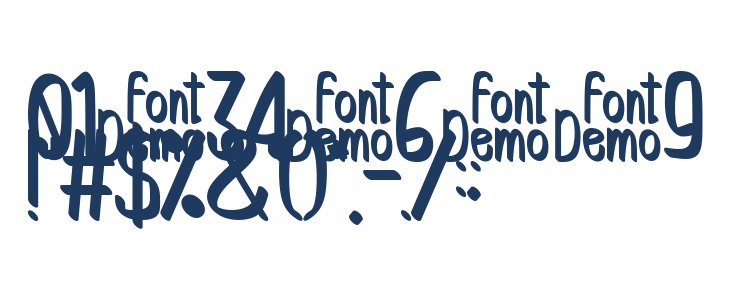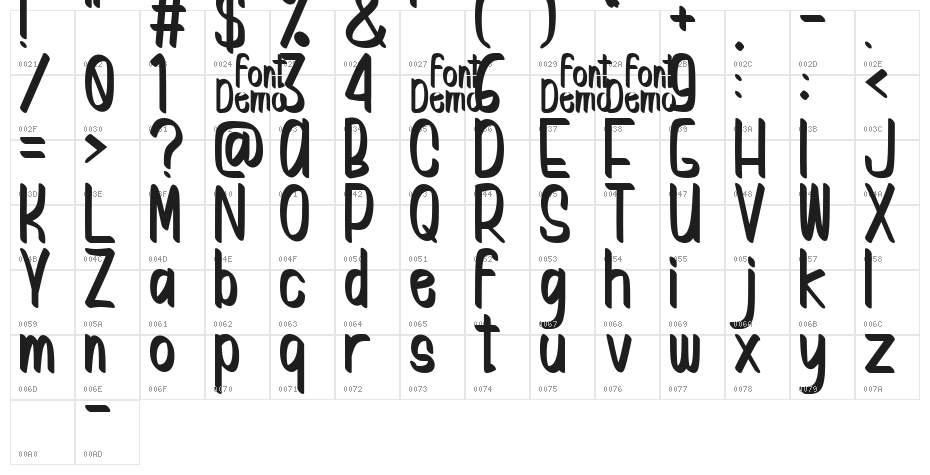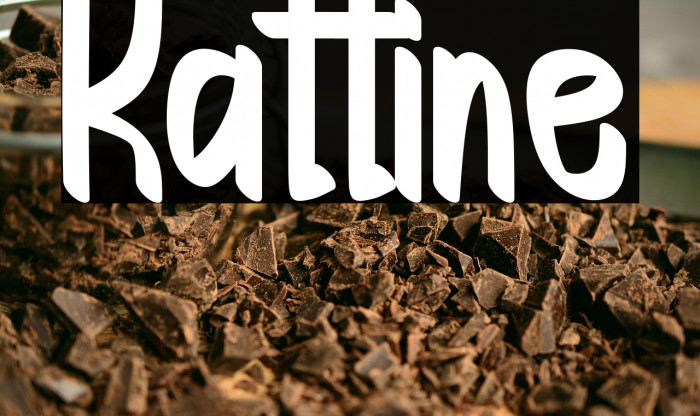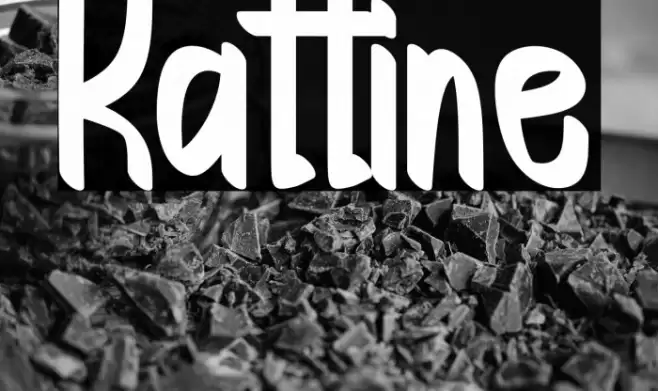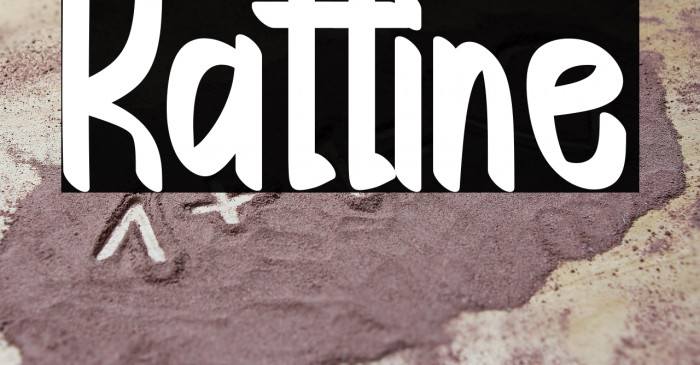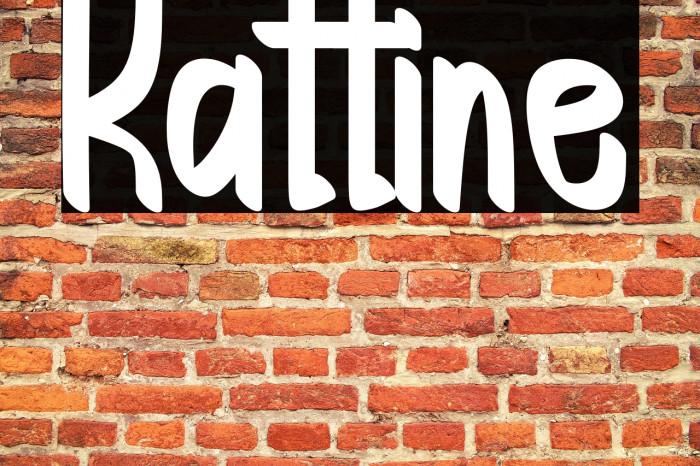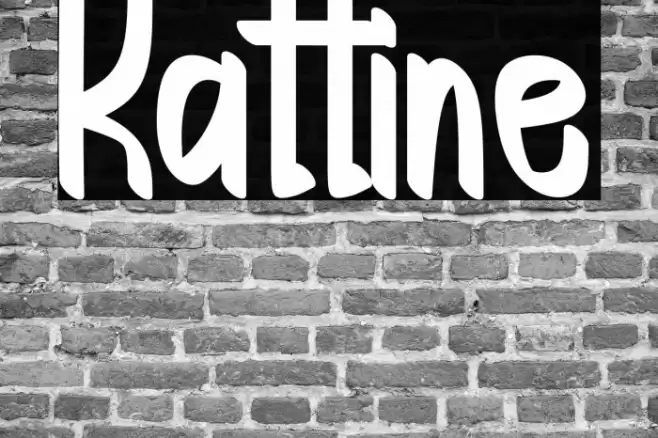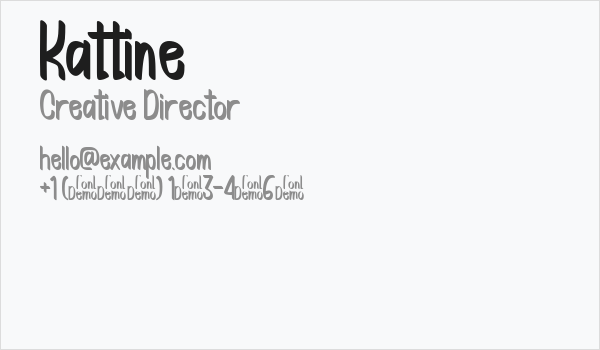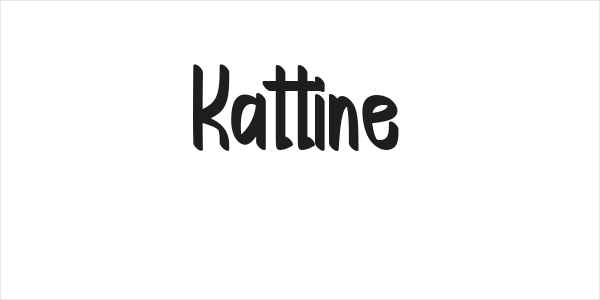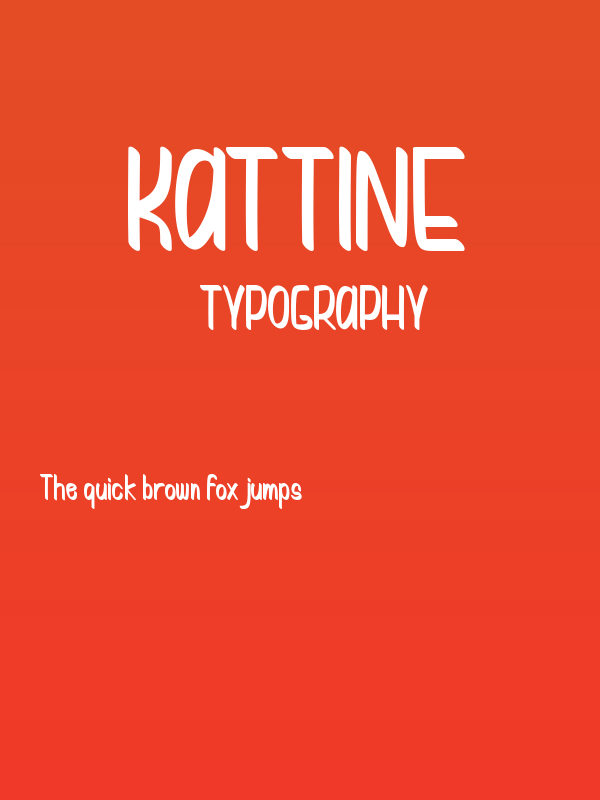
Kattine Font
Kattine Description
This font features a playful and bold style with rounded edges and a slightly irregular form, giving it a hand-drawn appearance. The uppercase letters are tall and narrow, while the lowercase letters maintain a consistent height, contributing to a cohesive look. The numbers and special characters follow the same stylistic approach, ensuring uniformity across all glyphs. The font's overall design is approachable and friendly, making it suitable for casual and creative projects. Its unique character shapes and moderate spacing provide readability while maintaining a distinctive visual appeal.
| Overall Style | Playful, Hand-drawn |